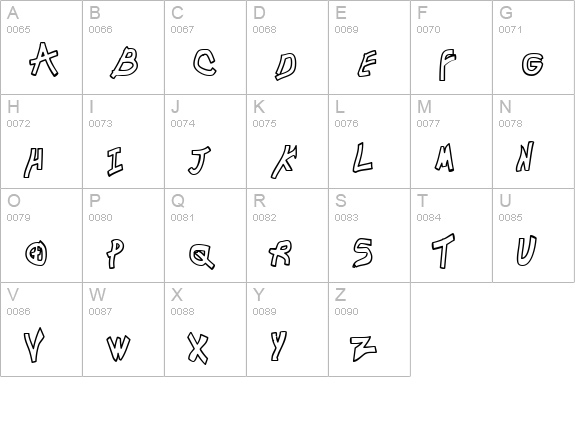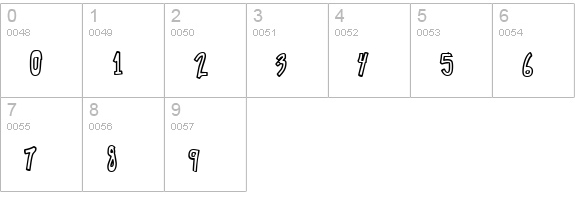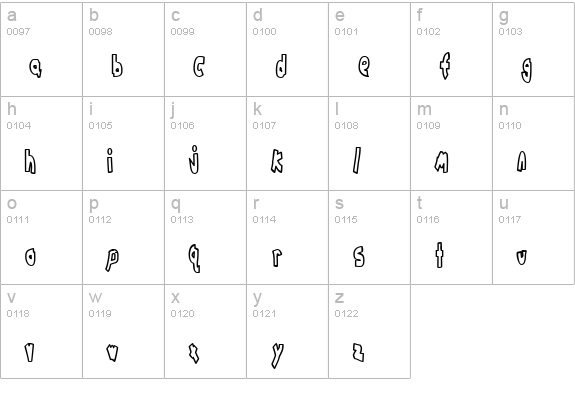
Chunkmuffin Hollow Font Details
Chunkmuffin Hollow font is a playful and whimsical typeface that exudes charm and character. With its chunky and rounded appearance, it is perfect for adding a touch of fun to your designs. This delightful font is ideal for a variety of projects such as invitations, posters, logos, and more. The best part about Chunkmuffin Hollow font is that it is completely free for personal and commercial use. You can easily download this font at FontsMarket.com and start incorporating its unique style into your creative projects. Don't miss out on the opportunity to add a touch of whimsy to your designs with Chunkmuffin Hollow font!